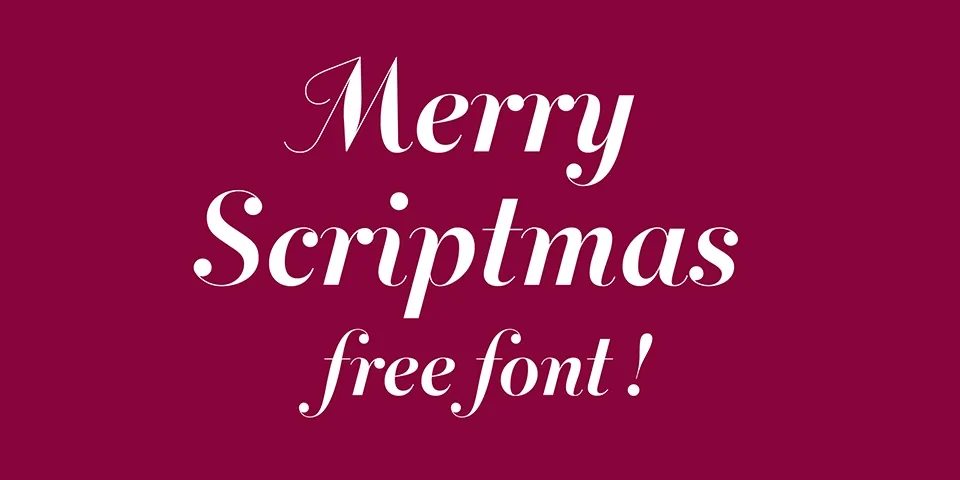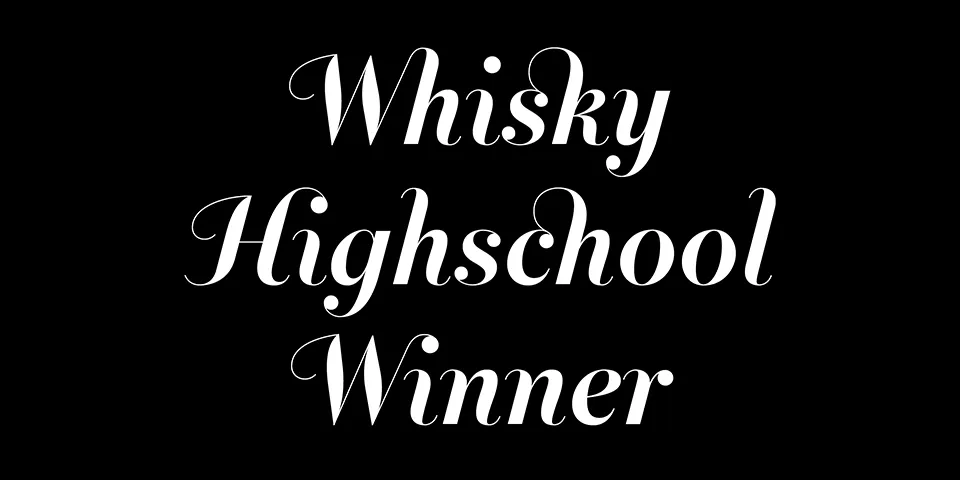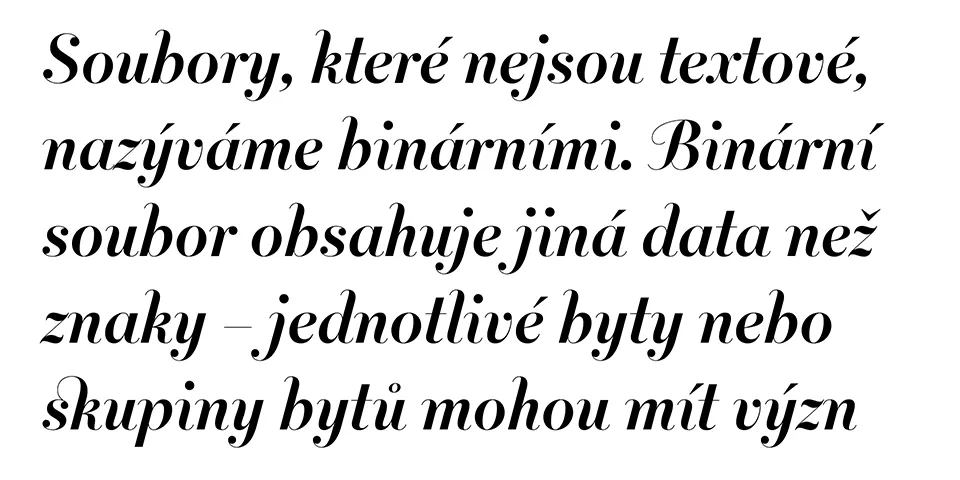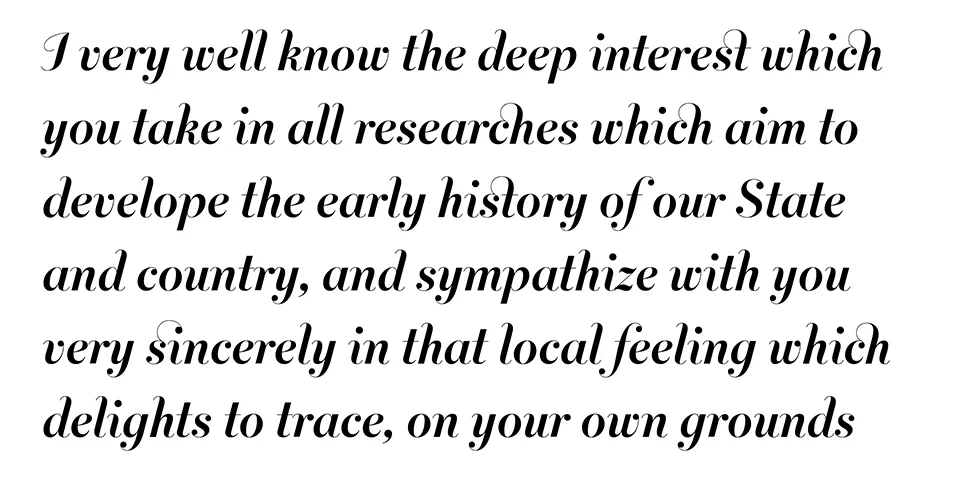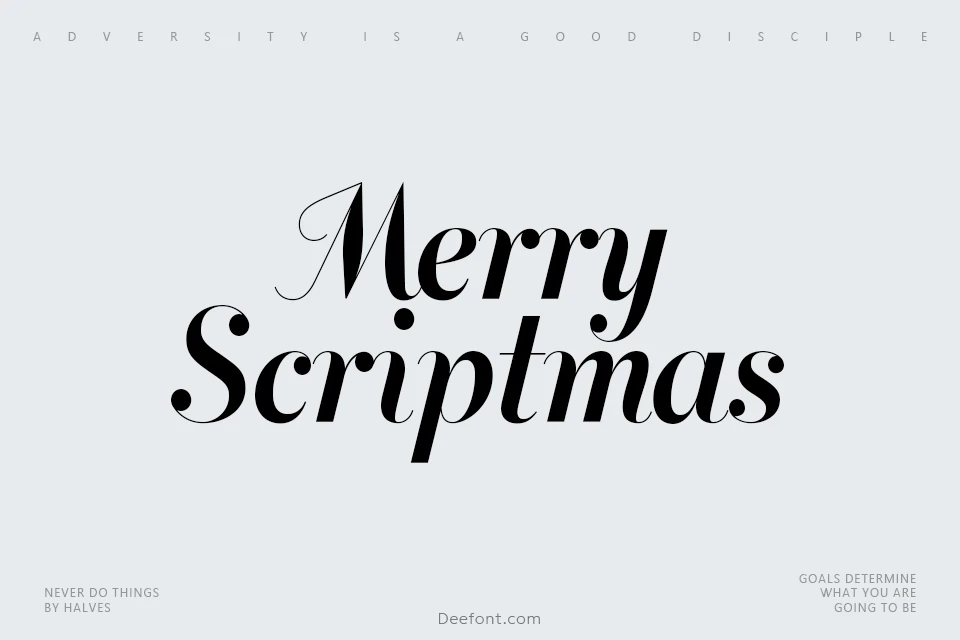
Merry Scriptmas Font
Merry Scriptmas Font is a classy and distinct serif font designed by Nico Inosanto of Nootype. With its elegant curves and artistic ligatures, this font is perfect for festive invitations, branding, packaging, and stylish text overlays. Merry Scriptmas supports an extended character set for Central, Eastern, and Western European languages, making it versatile for a range of creative projects. Please note, it is free for personal use only; commercial use requires purchasing a license or contacting the designer.